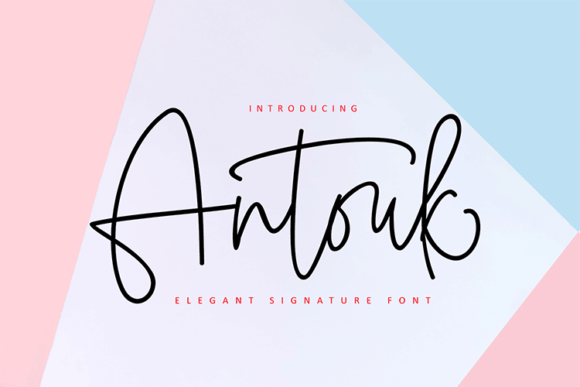
The Designer’s Delight: Antuok Signature Font
I’ll never forget the time I was working on a project for a client who wanted a elegant, high-end look. I had spent hours browsing through font libraries, but nothing seemed quite right. That was until I stumbled upon Antuok Signature. This stunning script font has been a game-changer for me, and I’m excited to share its beauty with you.
So, what makes Antuok Signature so special? Let’s dive into the good stuff and a few quirks I’ve discovered.
- ✨ Stylish and Thin Lettering: Antuok Signature boasts a beautiful, delicate script style that’s perfect for adding a touch of sophistication to any design.
- ✅ PUA Encoded: The font is PUA encoded, making it easy to access all the glyphs and swashes. No more tedious searching for the perfect character!
- 💫 Versatility: Whether you’re designing a logo, creating a social media graphic, or crafting a stunning invitation, Antuok Signature adapts effortlessly to any project.
While Antuok Signature is an amazing font, there are a few things to keep in mind:
- 🤔 Legibility at Small Sizes: As with many script fonts, Antuok Signature can be a bit tricky to read at very small sizes. Make sure to test it in your design to ensure it’s legible.
- ⚠️ Overuse of Swashes: With so many beautiful swashes to choose from, it’s easy to get carried away. Be mindful of your design balance to avoid overwhelming your audience.
The Story Behind Antuok Signature
While the exact backstory of Antuok Signature might be shrouded in mystery, it’s clear that the designer aimed to create a font that’s both versatile and beautiful. Imagine a designer, sitting by a serene lake, wanting to capture the elegance of handwriting in a digital font. That’s Antuok Signature – a blend of artistry and functionality.
Q: What makes Antuok Signature unique?
A: Antuok Signature stands out due to its stylish, thin lettered script style and PUA encoding, which allows easy access to glyphs and swashes.
Q: Is Antuok Signature difficult to read?
A: Like many script fonts, it can be challenging at very small sizes. It’s best used at larger sizes where its beauty can shine.